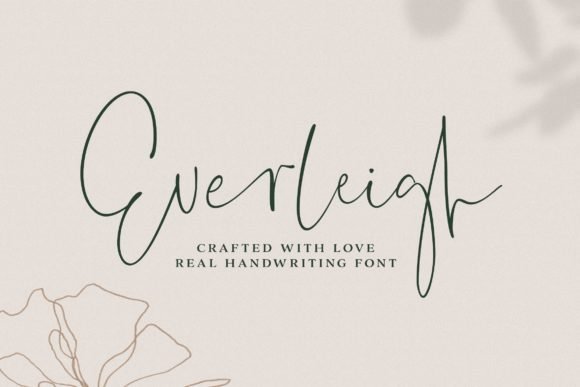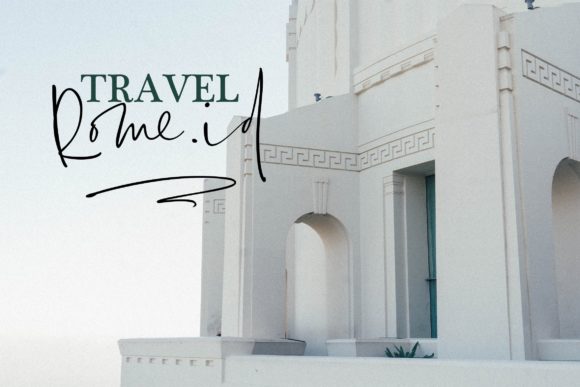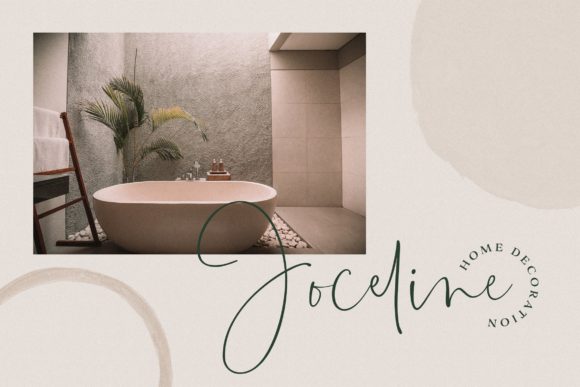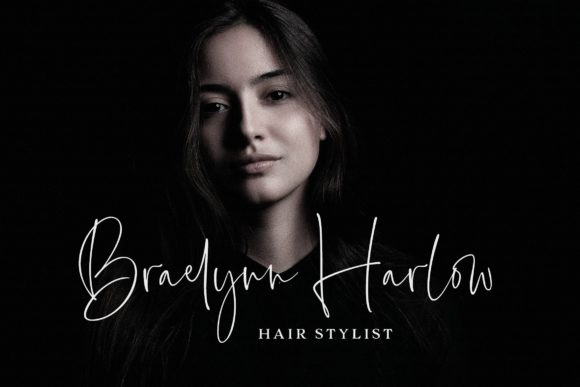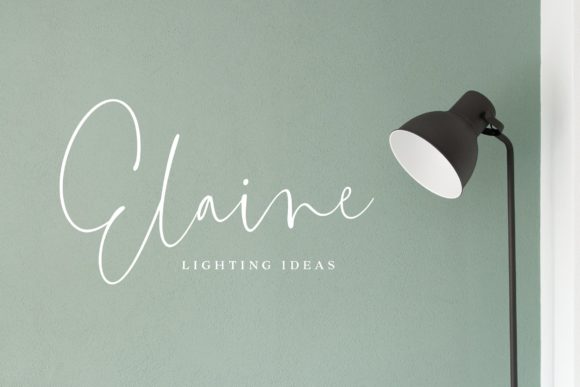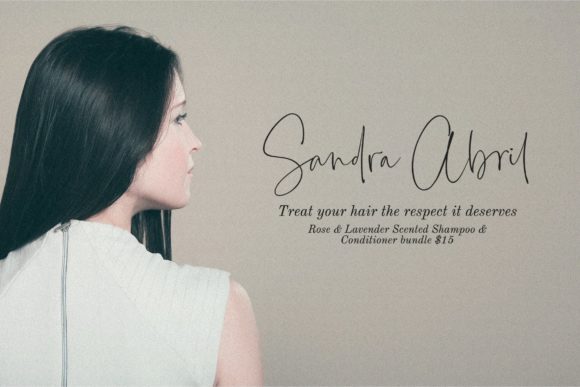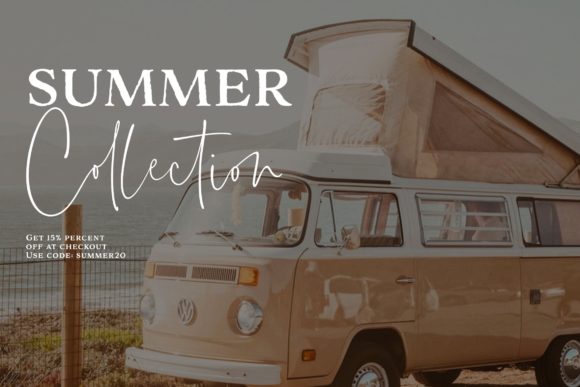
There’s nothing quite like the feeling of scribbling down an idea that’s been buzzing in your head. The pen glides across the paper, and suddenly, your thoughts are transformed into a tangible, beautiful thing. It’s moments like these that remind us of the power of handwritten typography – the way it can add a touch of personality and emotion to our designs.
Enter the Everleigh Script Font, a lovely and timeless handwritten font that’s sure to bring your designs to life. This versatile font is perfect for creating eye-catching logos, branding, and quotes that will leave a lasting impression. With its unique and beautiful touch, every letter is a work of art that will elevate your design to new heights. Whether you’re a seasoned designer or just starting out, the Everleigh Script Font is an invaluable tool that will help you create stunning visuals that resonate with your audience.
Everleigh Script Font Key Features
- Font Family: Everleigh Script, a beautiful and elegant script font designed for various typography needs.
- Character Set: Includes a comprehensive set of characters, including uppercase and lowercase letters, numbers, and punctuation marks.
- Unique Characteristics: Distinctive swashes, flourishes, and connecting strokes create a unique and sophisticated aesthetic.
Everleigh Script Font Review
I recently had the chance to work with the Everleigh Script Font, and I must say it’s a mixed bag. On the one hand, I love the ✨ elegant and sophisticated feel it brings to any design. The flowing script letters are a great addition to any project, and the font is perfect for creating a sense of luxury and high-end quality.
- The font is highly customizable, with a range of options for adjusting the style, size, and spacing.
- The ✨ elegant script style is perfect for creating beautiful headings and titles.
- The font is highly versatile and can be used in a variety of contexts, from wedding invitations to business cards.
However, there are some limitations to consider ⚠️. The font can be quite dense, which can make it difficult to read in smaller sizes. Additionally, the script style can sometimes look a bit overly decorative, which may not be suitable for all projects.
Overall, I would give the Everleigh Script Font 4 out of 5 stars. While it’s not perfect, it’s a great addition to any designer’s toolkit and can add a touch of elegance to any project. Just be sure to use it thoughtfully and in the right context.
The Everleigh Script Font is ideal for:
- Event branding and signage
- Personalized gift labels and tags
- Handwritten-style quotes and captions
Remember to experiment with different font sizes, colors, and styles to find the perfect look for your design.
Alternatives to Everleigh Script Font
Alex Brush is a beautiful, elegant script font perfect for adding a touch of sophistication to your designs. It’s ideal for titles, headings, and quotes in fashion, beauty, and luxury brands. Alex Brush is similar to Everleigh Script Font in its elegant and refined feel, but has a more subtle and understated approach.
Carolyna Pro is a modern, luxurious script font designed for high-end brands and publications. It’s perfect for titles, headings, and body text in fashion, beauty, and lifestyle industries. Carolyna Pro has a more dramatic and expressive feel compared to Everleigh Script Font, making it ideal for brands that want to make a statement.